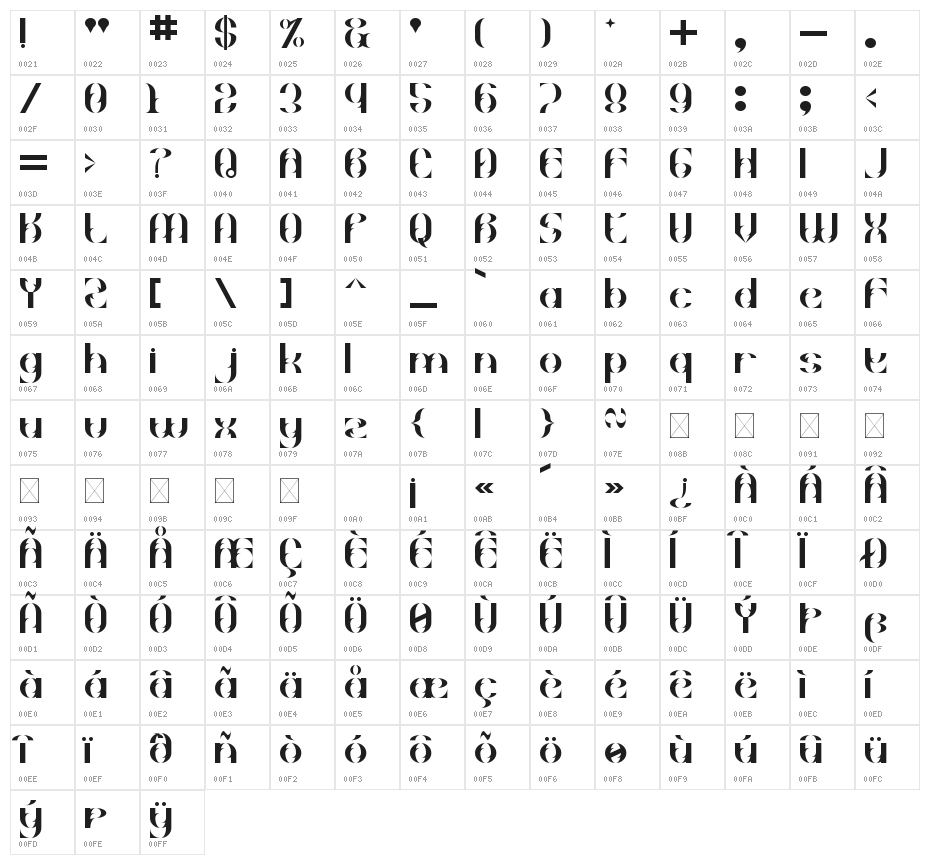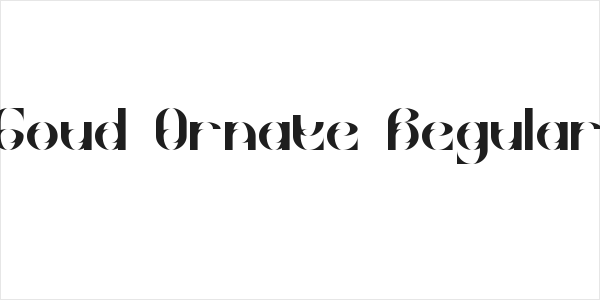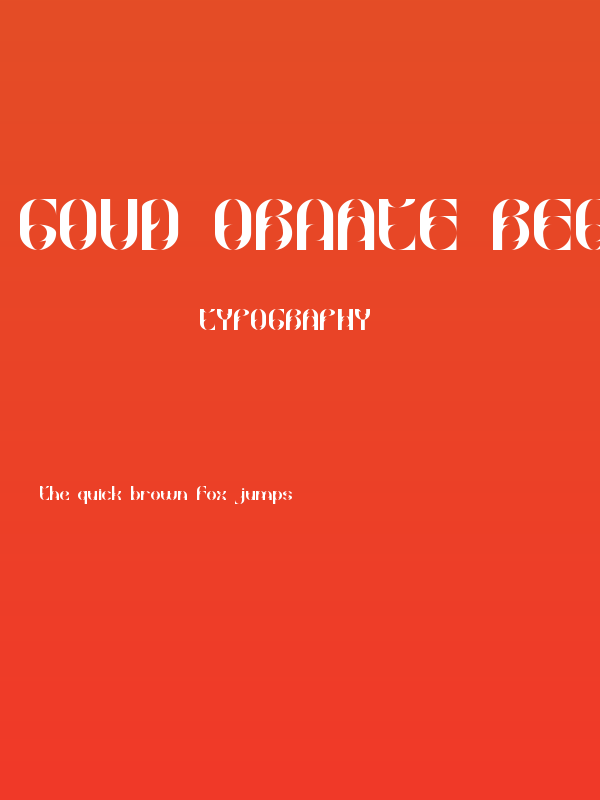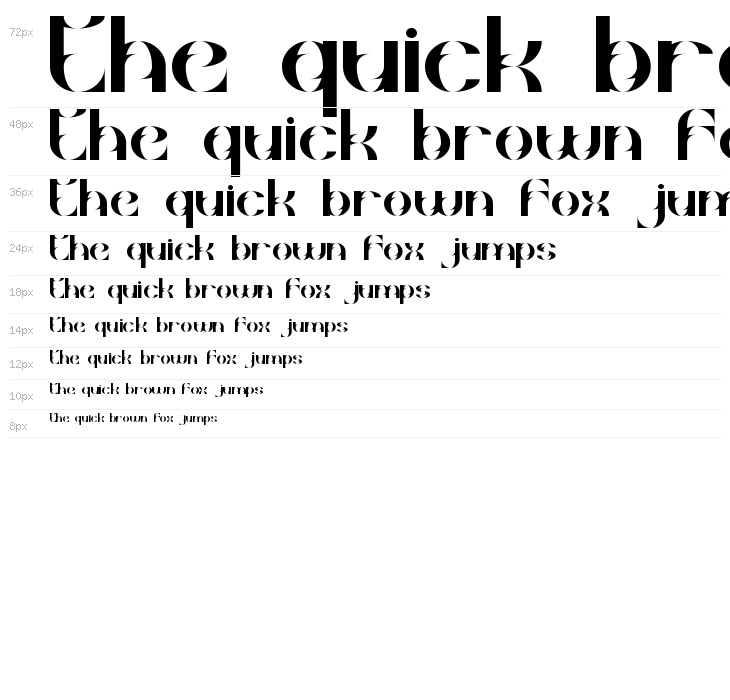
Goud Ornate Regular Font
Goud Ornate Regular Description
This font features a highly decorative and ornate style, characterized by its bold and artistic curves. The letters are crafted with intricate details, showcasing a blend of modern and vintage aesthetics. The uppercase and lowercase letters maintain a consistent design, with unique cutouts and flourishes that add to its distinct appearance. Numbers and special characters follow the same ornate theme, making it suitable for eye-catching designs. The overall look is both elegant and striking, perfect for projects that require a touch of sophistication and creativity.
| Proposed Projects | Ideal for luxury branding, wedding invitations, high-end product packaging, and artistic posters. |